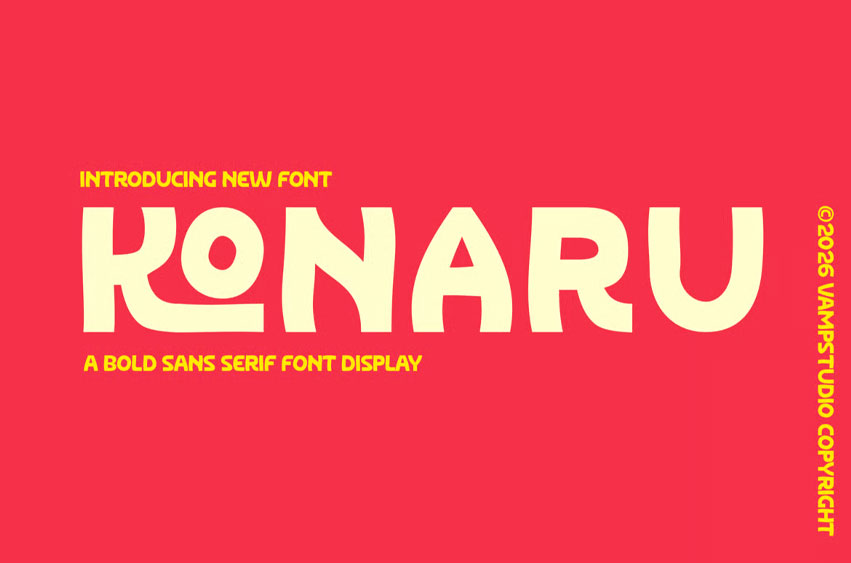
Konaru Font is a bold retro display sans font designed to create strong visual impact with playful vintage-inspired character. Featuring thick rounded shapes, dynamic curves, and expressive typography, Konaru is perfect for posters, product packaging, food branding, advertising campaigns, social media graphics, and eye-catching logo creation.
Its retro-modern personality delivers powerful headlines and memorable branding visuals while maintaining excellent readability and versatility across creative projects.
• Bold retro display sans style
• Uppercase & lowercase characters